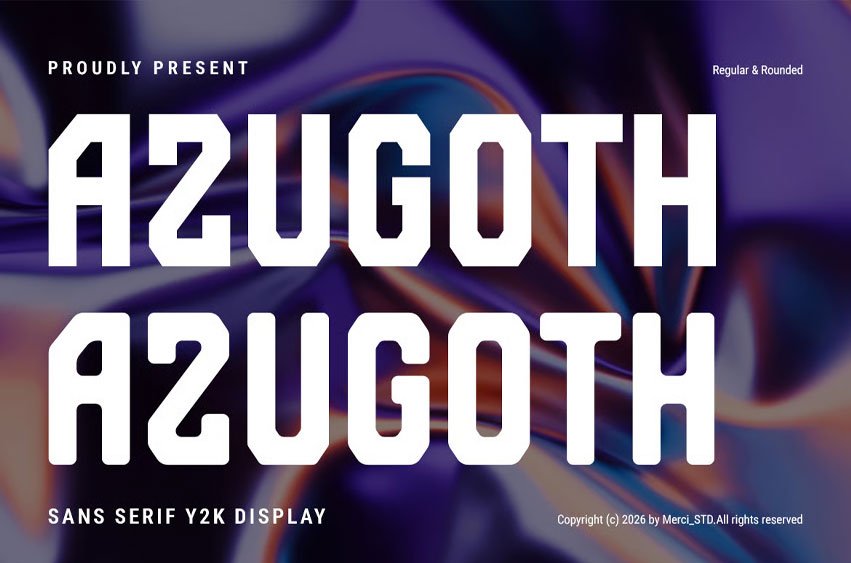
Azugoth Font is a bold futuristic sans serif display font inspired by Y2K visual trends and modern digital aesthetics.
Featuring sharp geometric construction with rounded corners, this font is ideal for futuristic branding, gaming projects, electronic music visuals, posters, UI headlines, and technology-themed designs. Its clean and powerful appearance creates a strong modern visual identity.